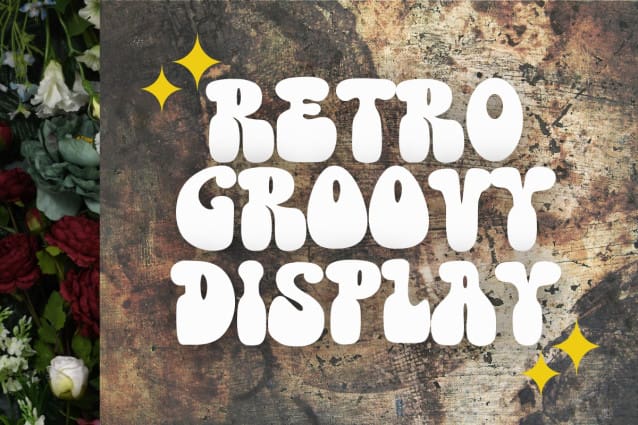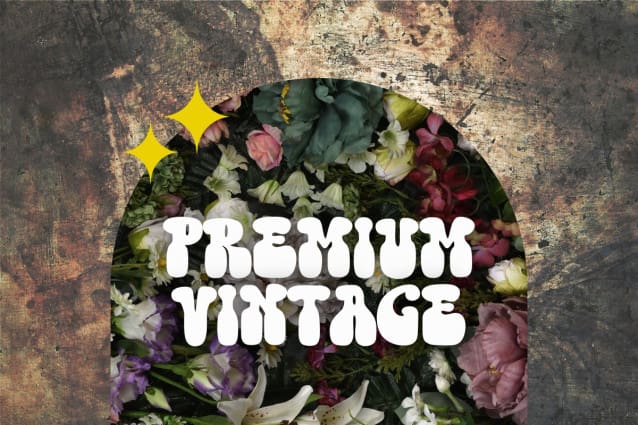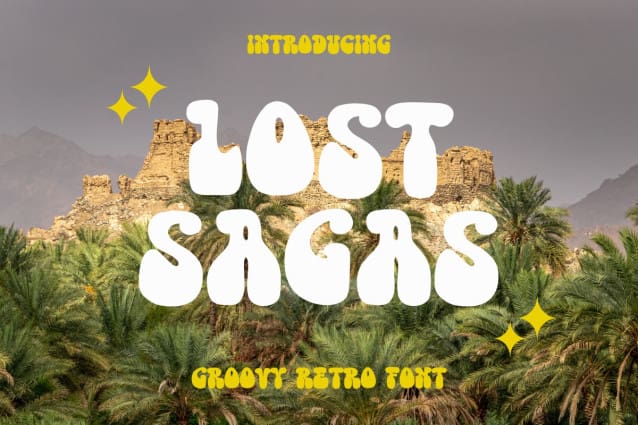
Lost Sagas Font
Lost Sagas Font a retro category display font with a groovy adorable style that’s really cool to enhance your creative projects. This font is great for t-shirts, printing, pod business, print on demand, stickers, cricut, craft, lettering, quotes, and many other creative ideas.